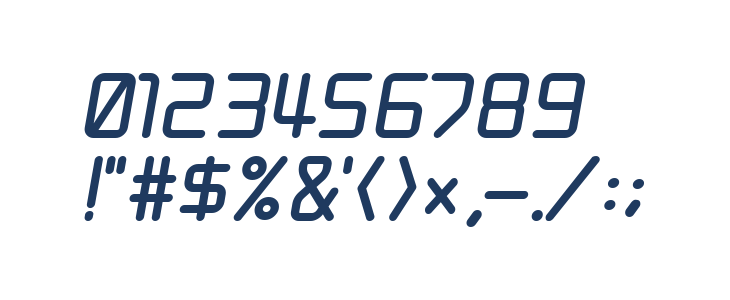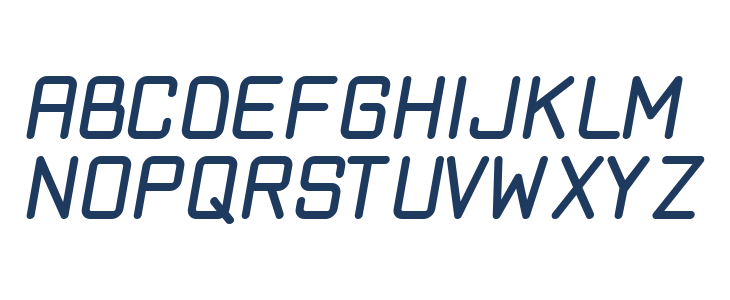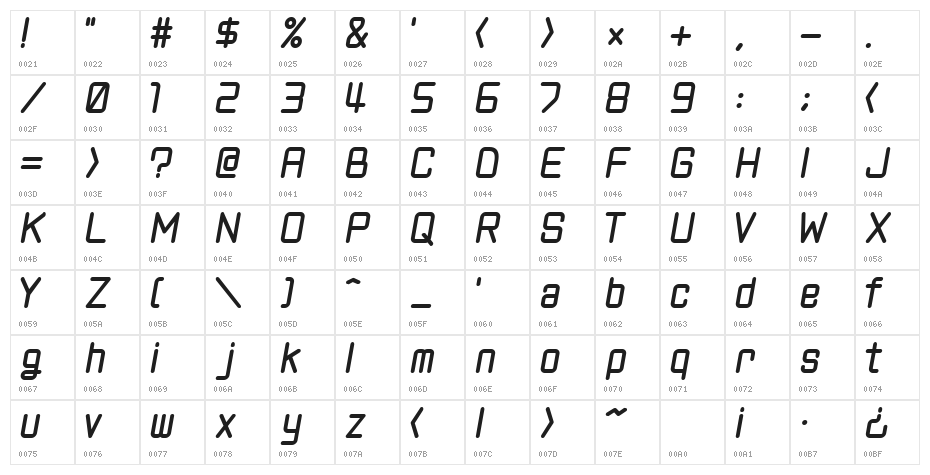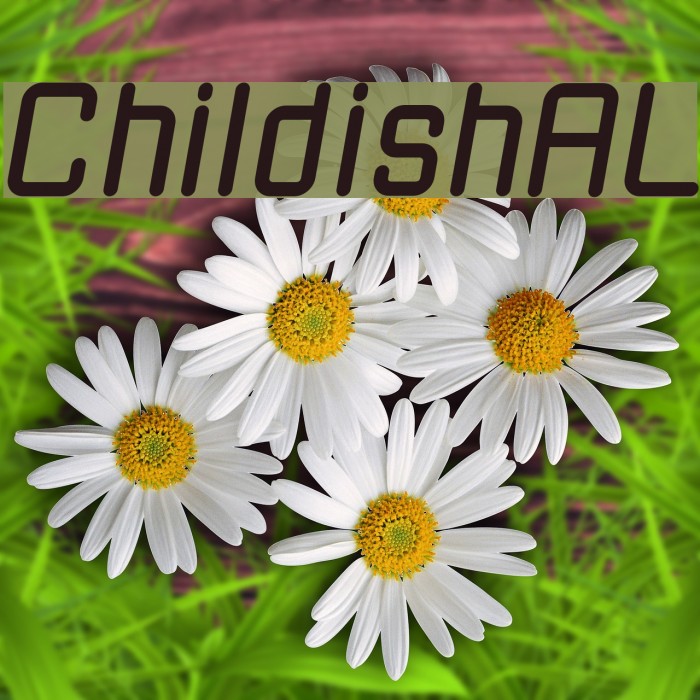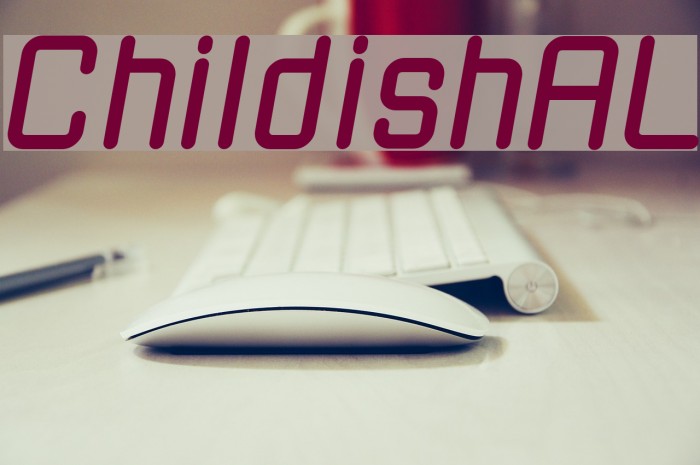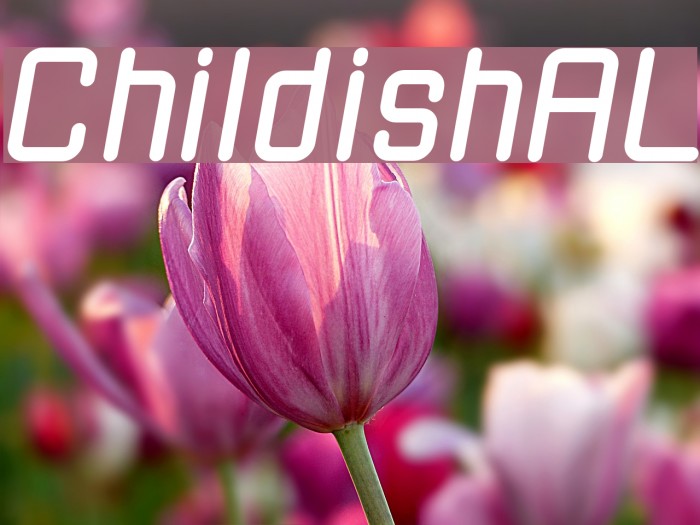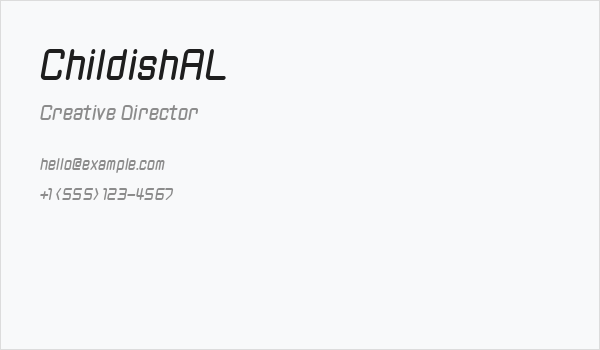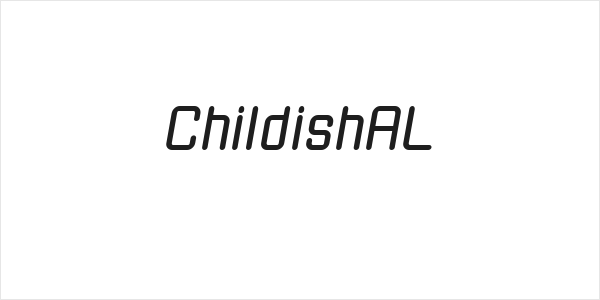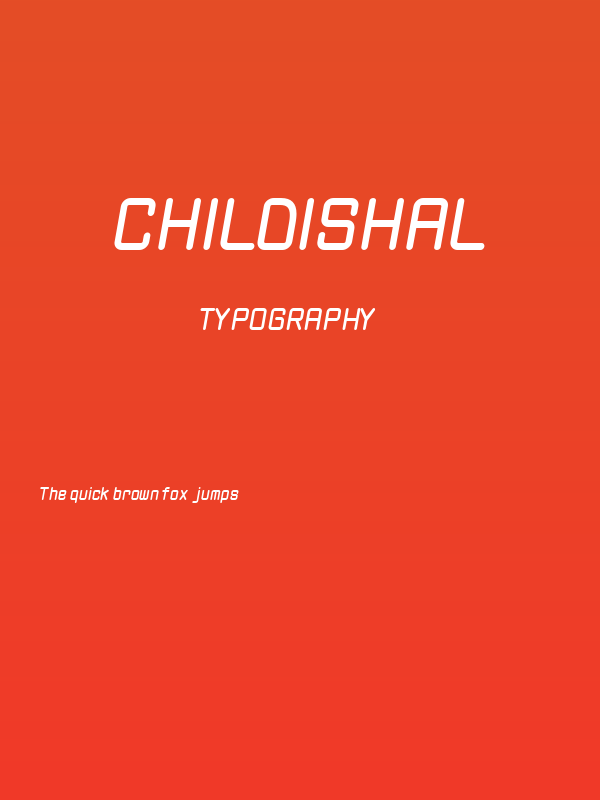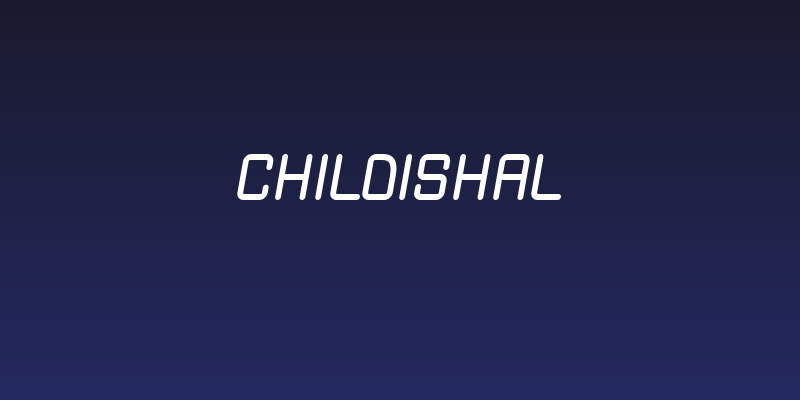
ChildishAL Font
ChildishAL Description
This playful and modern font features rounded edges and a slightly italicized style, giving it a dynamic and youthful appearance. The characters are uniformly spaced, with a consistent stroke width that provides a clean and approachable look. The uppercase and lowercase letters maintain a harmonious balance, while the numerals and special characters are designed to complement the overall aesthetic. Its smooth curves and friendly demeanor make it ideal for projects that aim to convey a sense of fun and creativity.
| Proposed Projects | Ideal for children's books, playful branding, educational materials, and creative advertising. |